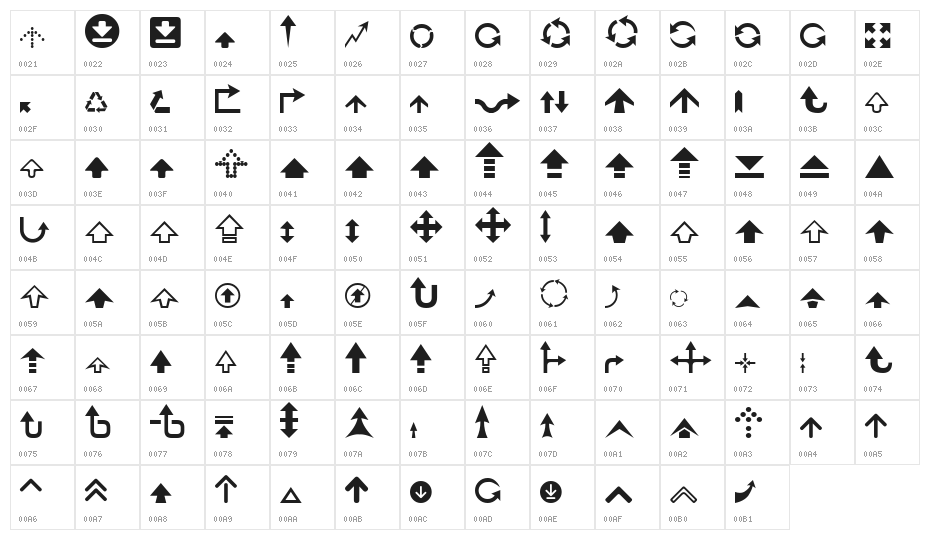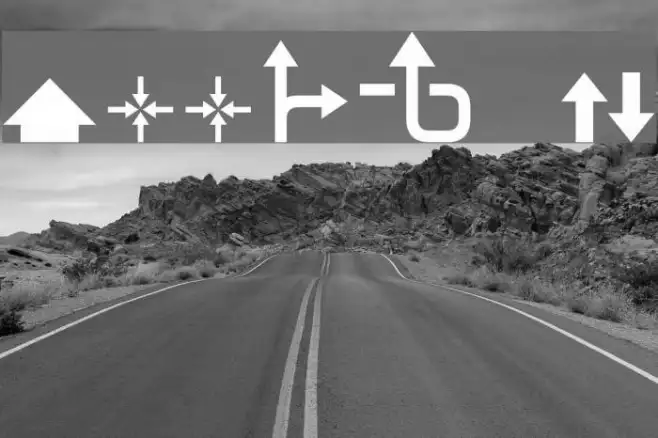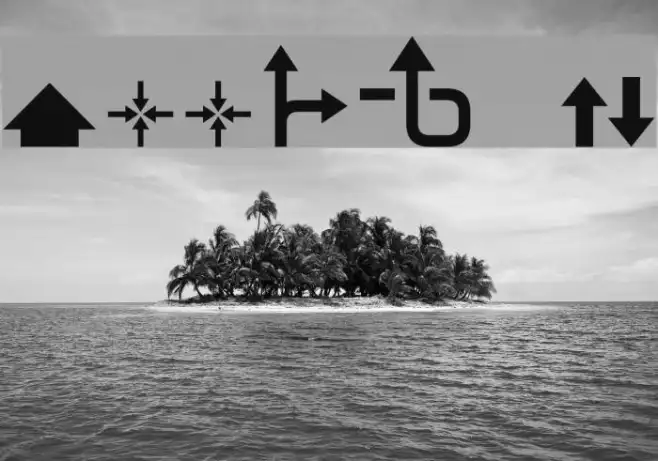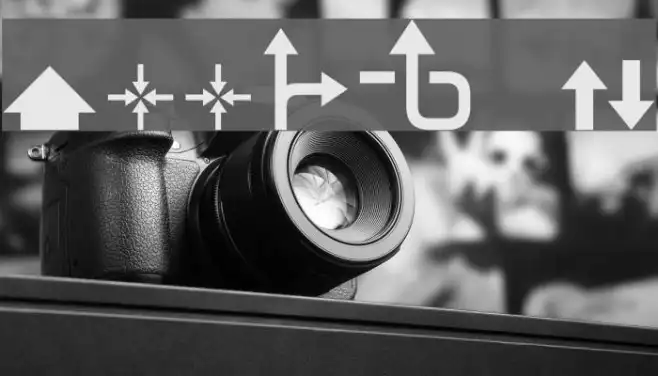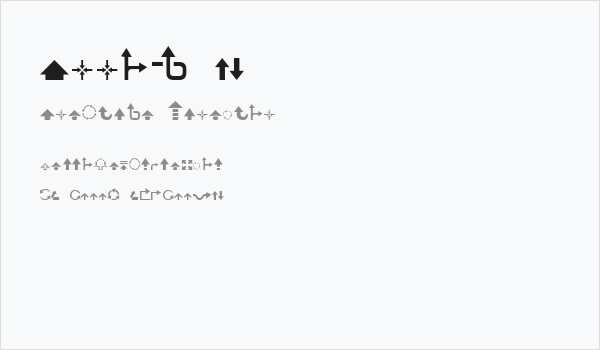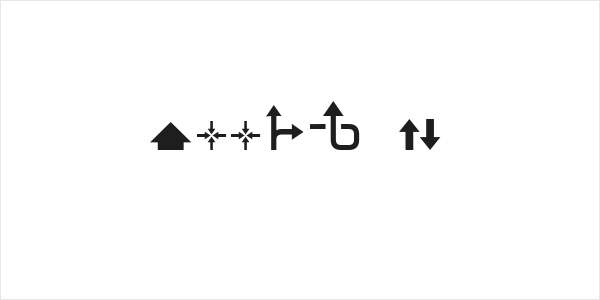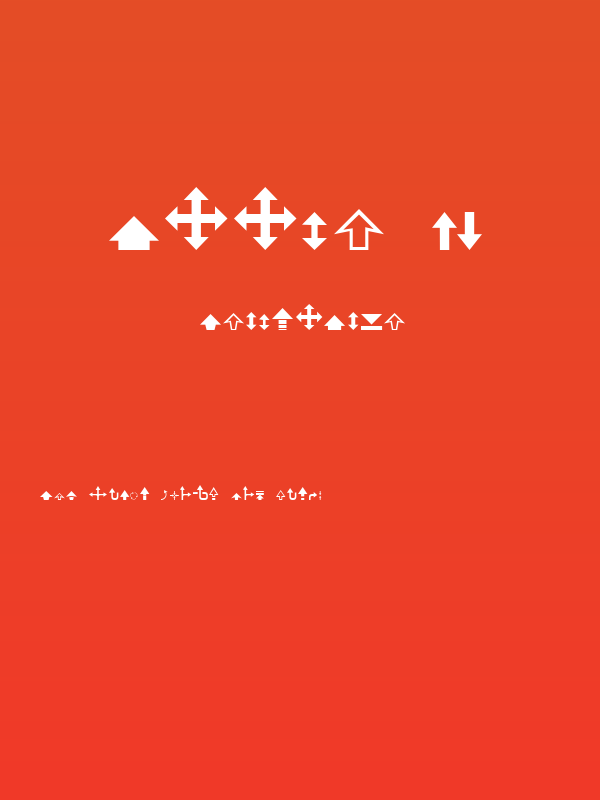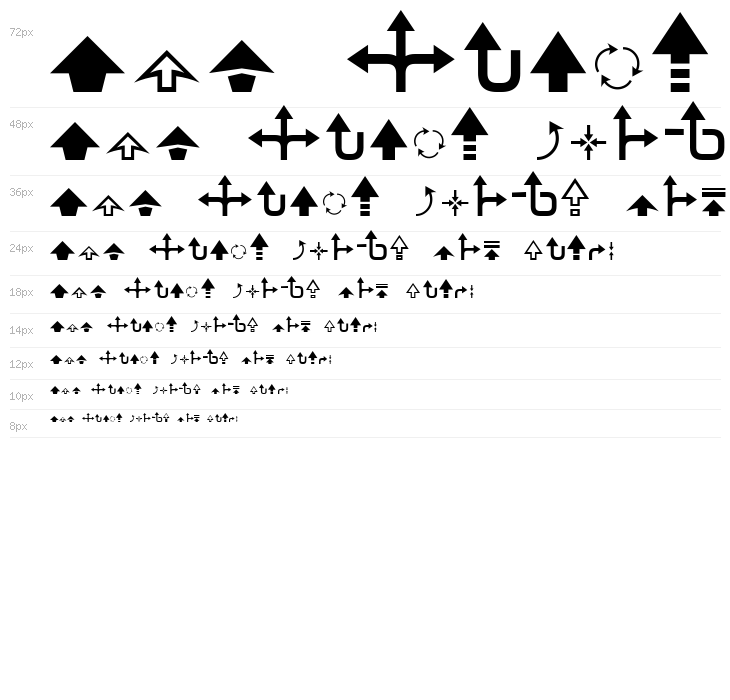
Arrow 7 Font
Arrow 7 Description
A collection of bold, geometric arrow and directional symbols with a variety of styles including filled, outlined, circular, and multi-directional forms. The glyphs are highly stylized and decorative, suitable for icons or signage rather than traditional text.
| Overall Style | Decorative, Modern |
| Use Case | Icons, Signage, Infographics, UI elements |
| Proposed Projects | User interface icons, signage, infographics, navigation aids, decorative elements. |